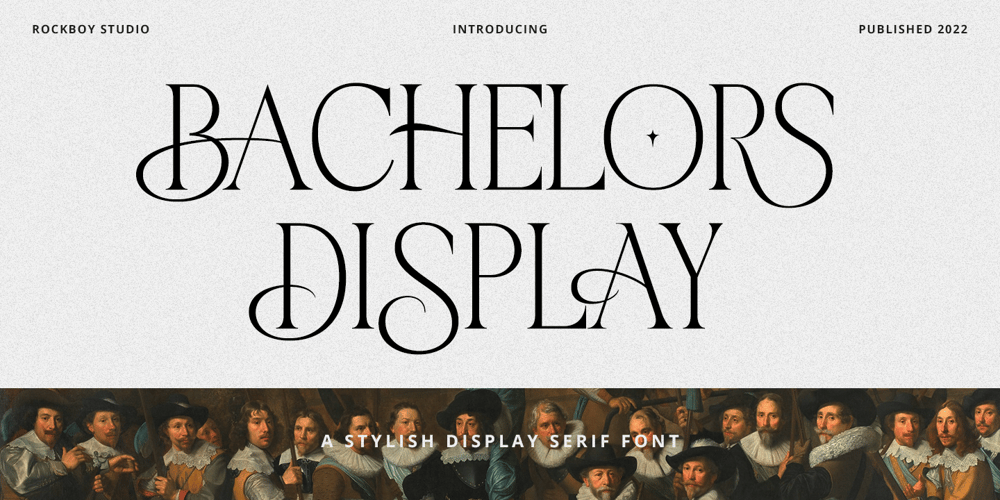
Bachelors Display Font Family was designed by Hayinah and published by Rockboys Studio. Bachelors Display contains 1 styles and family package options. Bachelors Display is a display serif font with a romantic vibe. This classic serif font comes with swashy alternates so you can create high-impact, romantic designs for a wide range of display uses!